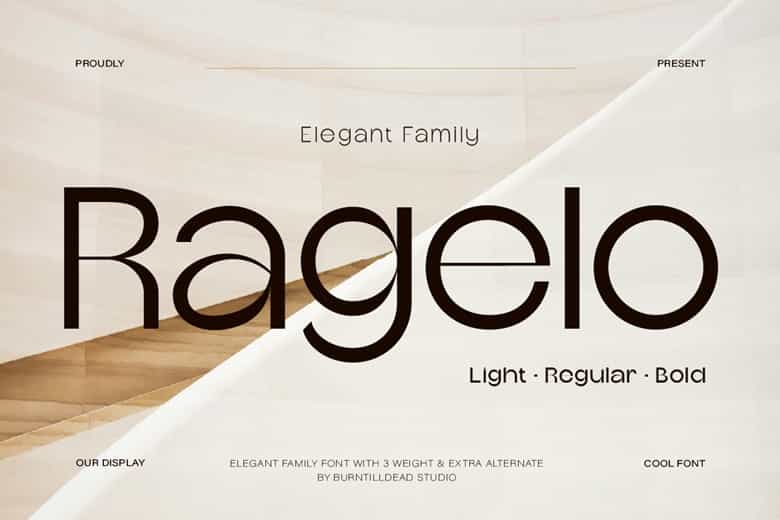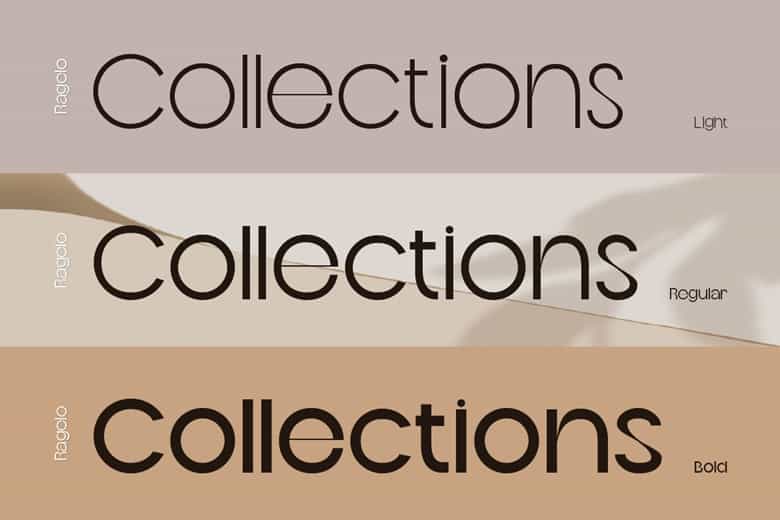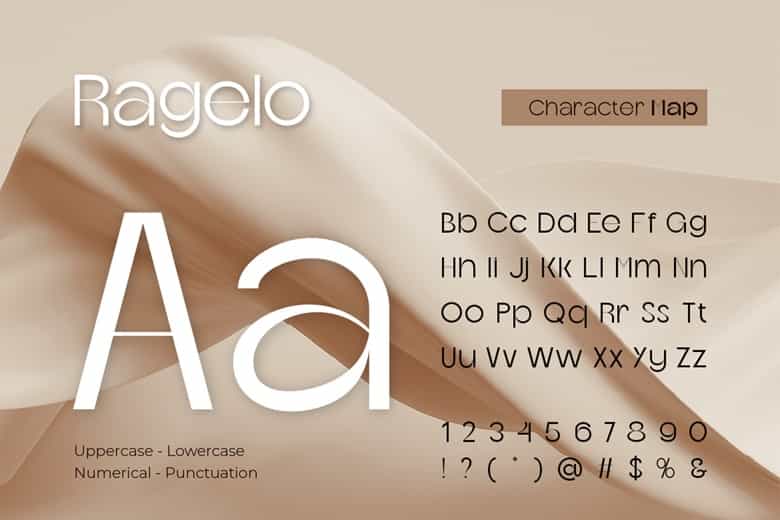
Ragelo is a new display typeface with modern elegance touch. This font is ideal for minimalist designs lovers who likes minimalism and clean looks of modern world. Ragelo is graceful font with three variants included in the pack: Light, Regular, and Bold. It also has matrix and diagonal variants and can be used flexibly to enhance the aesthetic appeal of any design.